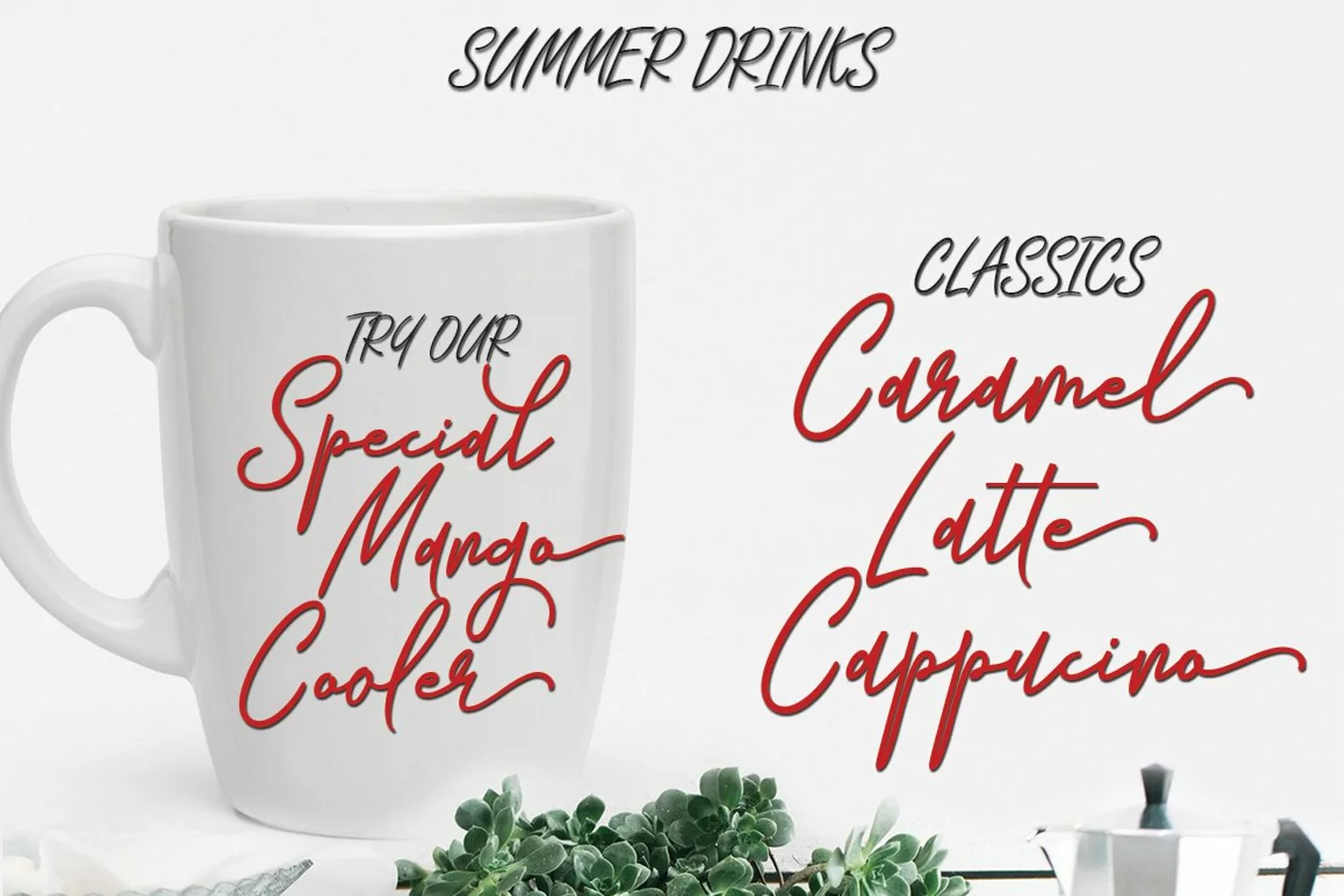
INTRODUCING
Violleta Script : is a unique handwritten font. Its
unique flow and easy signature style makes it perfect to use for logos,
signatures, quotes, badges, labels, packaging design, blog headlines or
simply use it in your next design project.
Violleta Script : comes with upper and lowercase Basic
Characters, Numbers, Marks and Punctuation. Diacritics are also
available for Western and Central European Languages.
The Features of this fonts is : Standart ligatures, Stylistic Alternates, Stylistic Sets, and swashes.